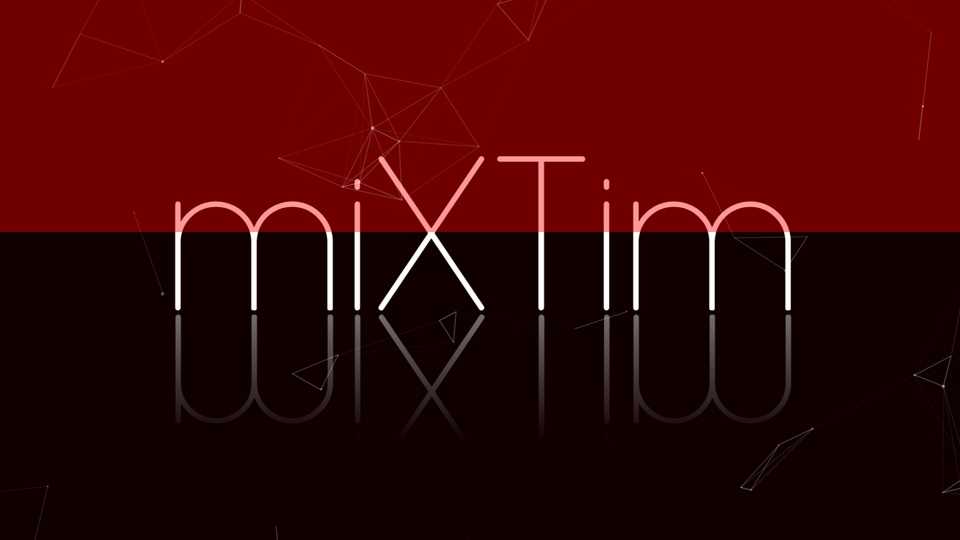
Download miXTim font, a modern geometric sans serif typeface, inspired by elegance. Designed with clean and stylized contemporary geometry, miXTim is a type system with high refined curves which focus on clarity and legibility.
Designer: Juande Megias Roca